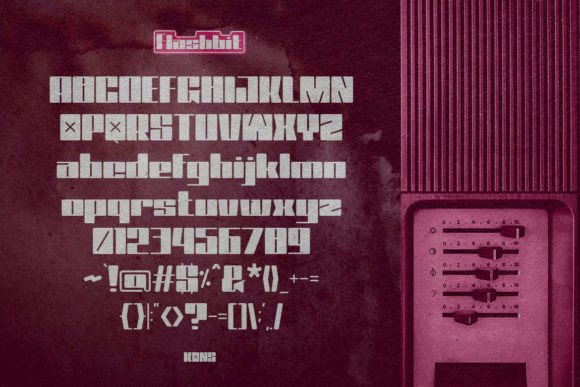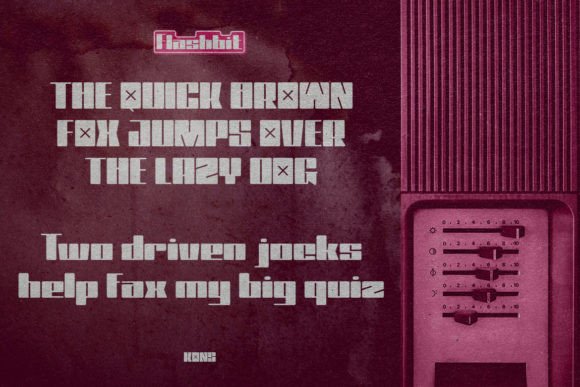
Welcome to the Flashbit Font Time Machine: A Blast from the Y2K Era
Hey there, fellow designers and creative enthusiasts! Are you ready to take a trip down memory lane to the Y2K era? I’m talking about the dawn of the digital age, when video games, TV shows, and graphics were taking over the world. As I was working on a recent project, I found myself struggling to find the perfect font that captured the essence of this retro-futuristic style. That’s when I stumbled upon the Flashbit font, and let me tell you, it’s been a game-changer!
The Flashbit Font: A Sophisticated Retro-Futurism Style
The Flashbit font is a stunning example of retro-futurism, inspired by the emerging digital world of visual graphics in the 2000s. This font is perfect for designers, crafters, and creative hobbyists looking to add a touch of nostalgia to their projects. From posters and game design to TV shows, packaging, snacks, and more, Flashbit is the perfect fit for any project that needs a blast from the past.
Honest Review: What I Love and What I Don’t
- ✅ Retro-futuristic style that’s perfect for Y2K-inspired projects
- ✅ Highly versatile and can be used for a wide range of applications, from logos and branding to game assets and fashion
- ✅ Unique and stylized letterforms that will make your project stand out
- ✅ Easy to read and understand, even at smaller font sizes
The Not-So-Good Stuff 🤔
- ⚠️ Limited availability of certain characters and glyphs
- ⚠️ May not be suitable for body text or long-form content due to its stylized nature
The Designer Inspiration Behind Flashbit
The Flashbit font was inspired by the early days of digital graphics and video games. Imagine a world where pixel art and 8-bit music reigned supreme. The font’s creator, a fictional designer named “Byte”, was obsessed with capturing the essence of this era. Byte spent countless hours pouring over old video games, TV shows, and graphics, distilling the best elements into a single font. The result is Flashbit, a font that’s equal parts retro and futuristic.
Q: What is the Flashbit font inspired by?
A: The Flashbit font is inspired by the emerging digital world of visual graphics in the 2000s, including video games, TV shows, and posters.
Q: What kind of projects is Flashbit suitable for?
A: Flashbit is perfect for a wide range of projects, including logos, branding, game assets, fashion, packaging, and more.